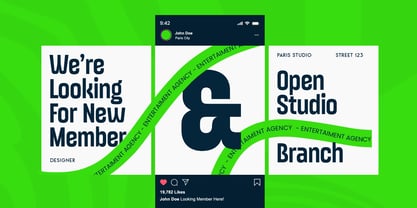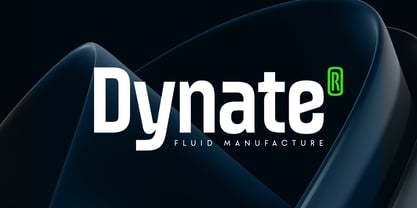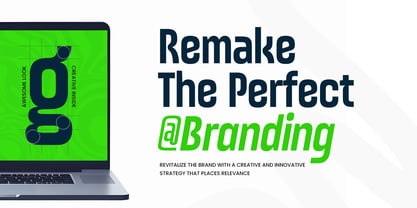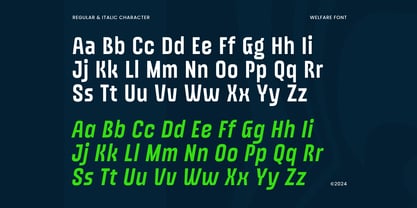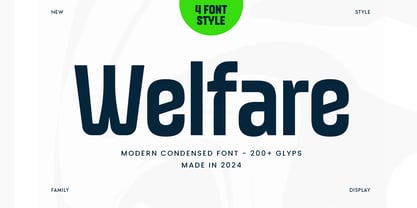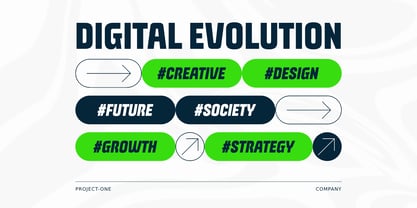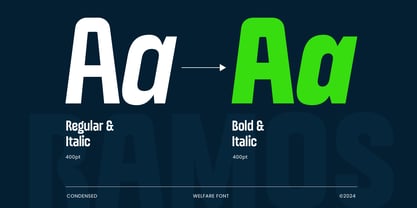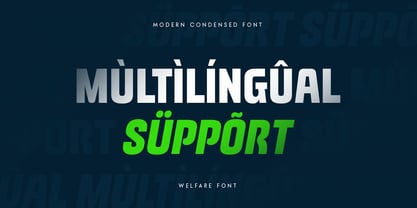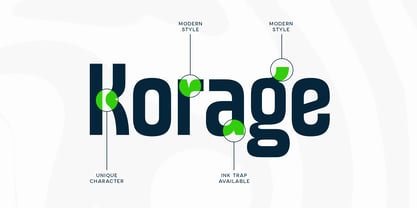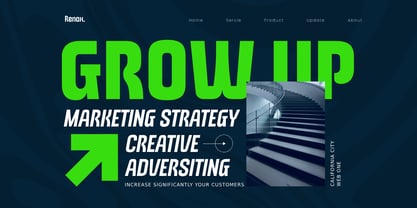
Welfare
by Sensatype Studio
Welfare - Modern Condensed Font
Welfare is a modern condensed font that strikes the perfect balance between style and clarity. Its sleek, narrow letterforms make it an ideal choice for professional branding, logos, and impactful typography in any design project. Whether you’re working on corporate materials, web design, or product packaging, Welfare adds a polished and modern touch to your work.
With a focus on readability and clean lines, Welfare’s condensed style maximizes space without sacrificing the visual appeal. This font is especially suited for brands seeking a professional, minimalistic identity that still makes a bold statement. Choose Welfare for a fresh and contemporary look in your design, ensuring that every message stands out while maintaining a refined, elegant edge.
Welfare Modern Condensed Font Features:
• Available 4 styles: Regular, Bold, Regular Italic, Bold Italic
• Unique Condensed Characters Ready
• Punctuation, Number, and Symbol
• Uppercase and Lowercase
• Multilingual Support
• Opentype Features
Designers: Zamroni Hamzah
Foundry: Sensatype Studio